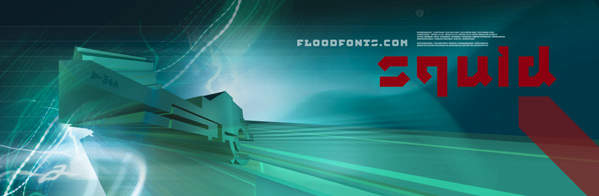
As of my last update in 2023, there is no widely recognized or mainstream font officially called "Squid." However, the evocative name suggests a font that would embody characteristics inspired by the charisma and unique physicality of the squid itself. Without specific details about a "Squid" font, one can only imagine and describe a hypothetical design that such a name might convey.
A font named Squid could likely encapsulate the fluidity and flexibility inherent to the sea creature it's named after. Given squids' distinguishable elongated bodies, large eyes, and tentacles, this font might feature letters with extended forms, smooth curves, and perhaps even elements that mimic the tentacle-like appearance in certain characters or letter decorations. It could be envisioned as either sleek and modern, drawing on the streamlined body of the squid for a more futuristic and minimalist aesthetic, or it could incorporate a more organic, whimsical style, emphasizing the unpredictable, flowing movements of the squid through irregular baseline or letter shapes that seem to dance across the page, much like the movements of a squid through water.
The font could be versatile, suitable for creative projects that desire to imbue a sense of mystery, fluidity, and innovation. Imaginable uses of the Squid font might range from the branding of aquatic-themed products, adventurous underwater game titles, to the more emotional and expressive mediums such as poetry books or avant-garde art exhibition posters, where the font’s unique characteristics can complement the content’s innovative spirit.
Furthermore, the color palette for any graphic material using the Squid font could include deep sea blues, iridescent teals, and blacks, referencing the squid's natural habitat and its incredible ability for camouflage and displaying vibrant colors, thereby enhancing the visual storytelling of the typeface.
Overall, while a "Squid" font is not a recognized entity in the typographic world as of my last update, the concept can offer an intriguing blend of fluidity, elegance, and a touch of the enigmatic, embodying the essence of its maritime namesake.
Squid